50+ Best Free Outline Fonts to Enhance Your Design Projects
Outline fonts are a popular choice among graphic designers and marketers due to their versatile and eye-catching appearance. These fonts consist of the outer shape of the letters, creating a unique and stylish look. They are widely used in various design projects, including logos, websites, and print materials. With the option to customize and pair them with other fonts, outline fonts offer endless possibilities for creating visually appealing designs. And the best part? There are plenty of amazing free outline fonts available for download, making it easy to enhance your design projects without breaking the bank.
What are outline fonts?
Outline fonts are fonts that consist of the outer shape or outline of each letter or character. Unlike traditional fonts that have solid shapes, outline fonts create a unique and stylish appearance by using lines and curves to define the letterforms. This gives designers the freedom to customize and manipulate the appearance of the fonts, making them a popular choice in the design industry. They can be used to create sleek and modern designs or playful and creative aesthetics, depending on the project’s requirements. Outline fonts are widely used in various design projects, including logos, websites, and print materials, to add a distinctive touch and make the text visually appealing. With the availability of free outline fonts, designers can easily enhance their design projects without incurring any additional costs.
Why are outline fonts popular in design?
Outline fonts are popular in design because they offer a unique and stylish appearance that sets them apart from traditional fonts. The use of lines and curves to define the letterforms gives designers the freedom to customize and manipulate the fonts to fit their vision. This versatility allows for a wide range of creative possibilities, making outline fonts a popular choice among graphic designers and marketers. Additionally, the eyecatching and modern look of outline fonts helps grab attention and make a strong visual impact in various design projects. Overall, outline fonts offer a fresh and contemporary aesthetic that can enhance the overall design and make it stand out from the crowd.
Benefits of Using Outline Fonts
Using outline fonts in design projects offers several benefits for graphic designers and marketers. Here are some advantages of using outline fonts:
Versatility in design projects
Outline fonts offer a high level of versatility in design projects. Graphic designers and marketers can utilize these fonts in a wide range of projects, including websites, logos, and print materials. The flexible nature of outline fonts allows them to adapt to different styles and themes, making them a valuable tool for professionals in the design industry.
Unique and eyecatching appearance
Outline fonts have a unique and eye-catching appearance that sets them apart from traditional fonts. Their distinct outlined edges give them a modern and sleek look, making them a perfect choice for creative and contemporary design projects. Whether used in headings, logos, or print materials, outline fonts instantly grab attention and make a bold statement. Their visually striking appearance ensures that your design projects will stand out and leave a lasting impression on your audience.
Easy to customize and pair with other fonts
Outline fonts are not only visually appealing but also easy to customize to suit your design needs. You can adjust the thickness of the outline, change the color, or even add texture to the font. Additionally, outline fonts work well when paired with other fonts, allowing you to create unique combinations and enhance the overall design of your project. Whether you want to create a modern and sleek look or a fun and playful vibe, outline fonts offer endless possibilities for customization and pairing.
Inspiration on how to incorporate these fonts into various design projects
When it comes to incorporating free outline fonts into design projects, the possibilities are endless. Here are some ideas to inspire you:
Logo design: Use an outline font to create a sleek and modern logo that stands out. Website design: Pair outline fonts with bold and vibrant colors for a playful and creative website design.
Poster design: Combine different outline fonts to create eye-catching headlines and add a unique touch to your posters.
Packaging design: Use outline fonts to create stylish and minimalist labels that grab attention on store shelves.
Social media graphics: Experiment with outline fonts to create engaging and shareable graphics for your social media platforms.
Remember, these fonts offer versatility, so don’t be afraid to experiment and push the boundaries of your design projects.
In conclusion, the top free outline fonts for design projects are a valuable asset for graphic designers and marketers. These fonts offer versatility in design projects and provide a unique and eye-catching appearance. They are also easy to customize and pair with other fonts, making them a go-to choice for professionals. Incorporating these fonts in your design arsenal will enhance the visual appeal of any project.
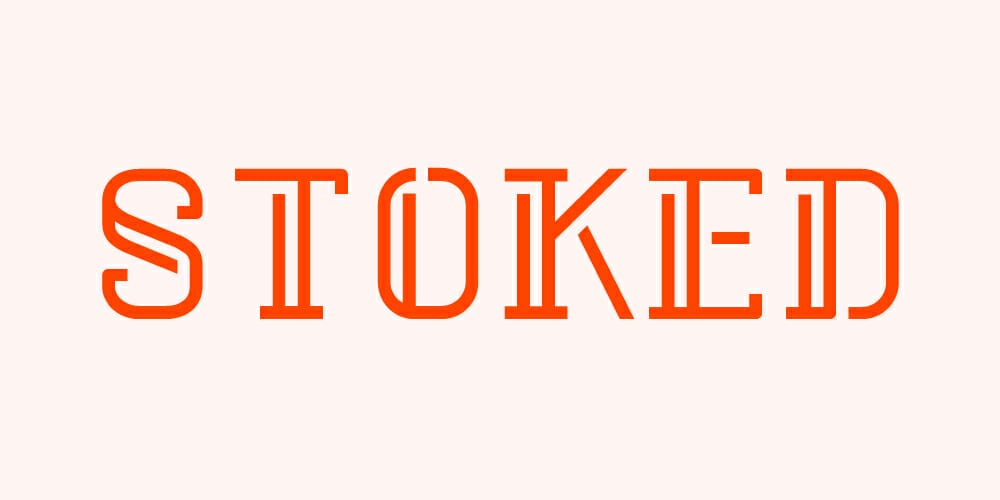
Gossamer Typeface
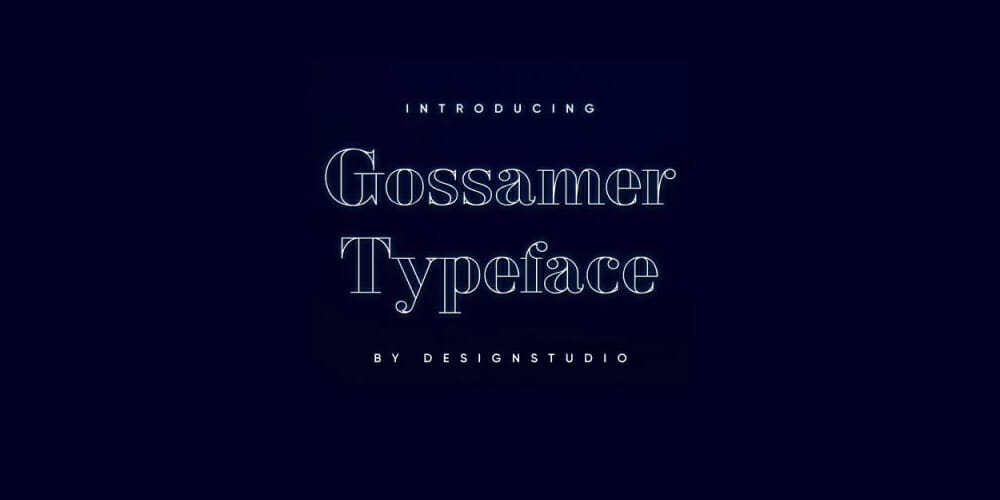
VTF Lack
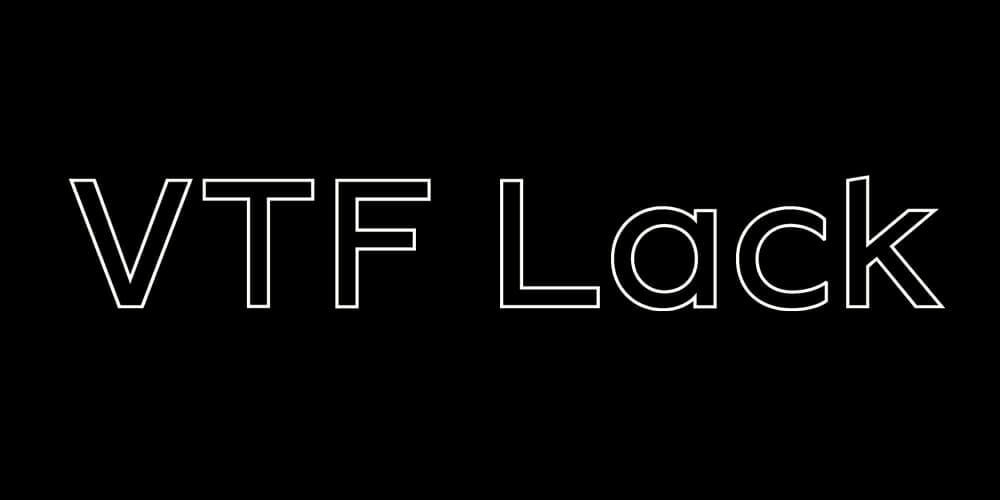
Cortni Font
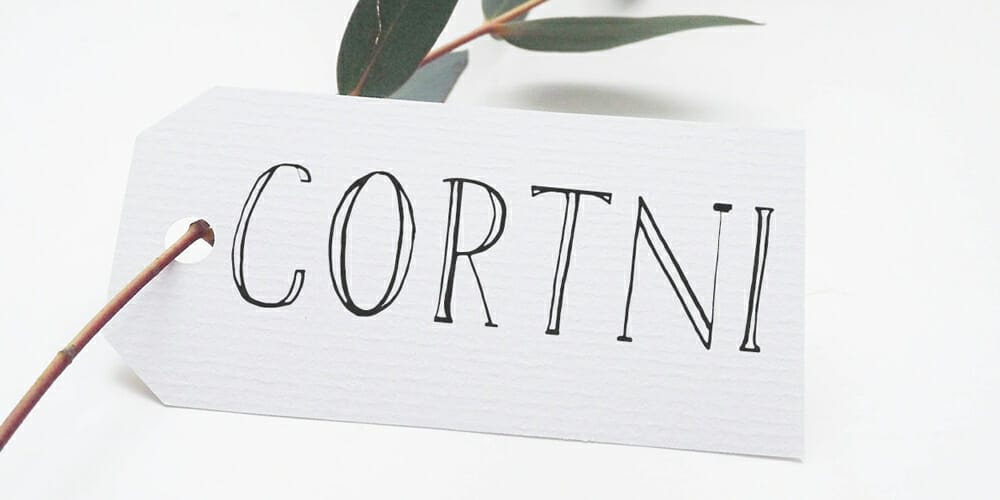
Balans
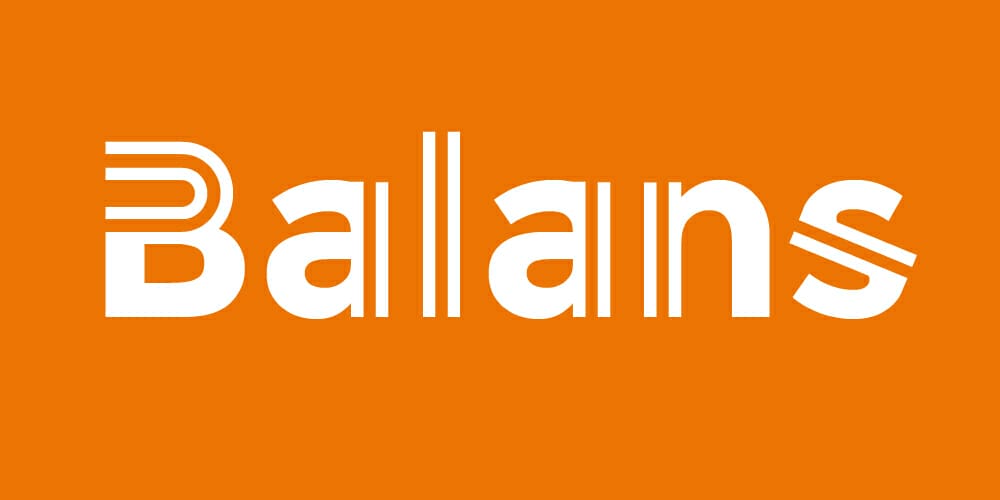
Pikolo Block Alt Display Font
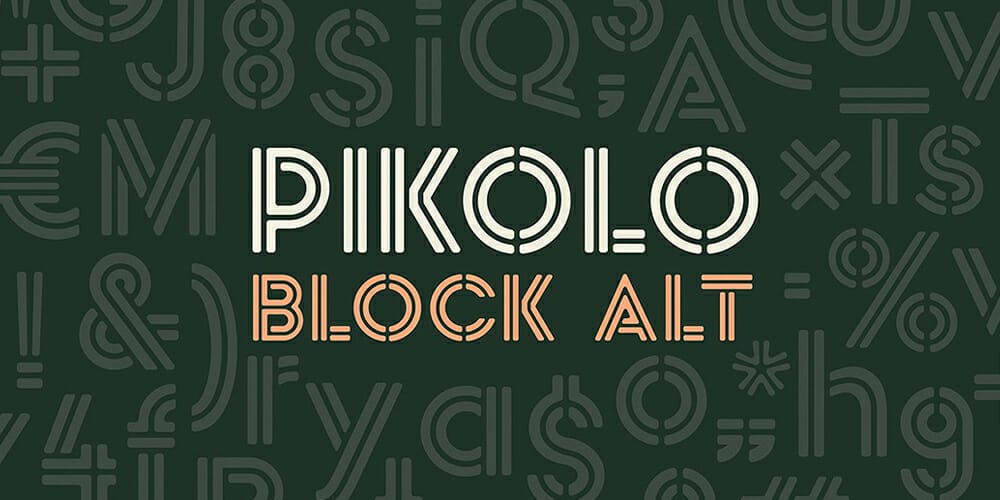
Protomo Font
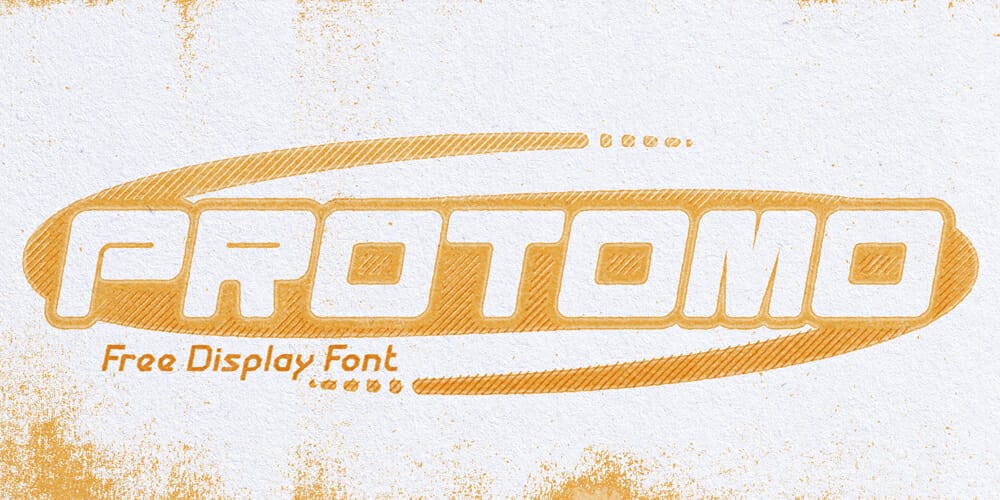
Neon Sans
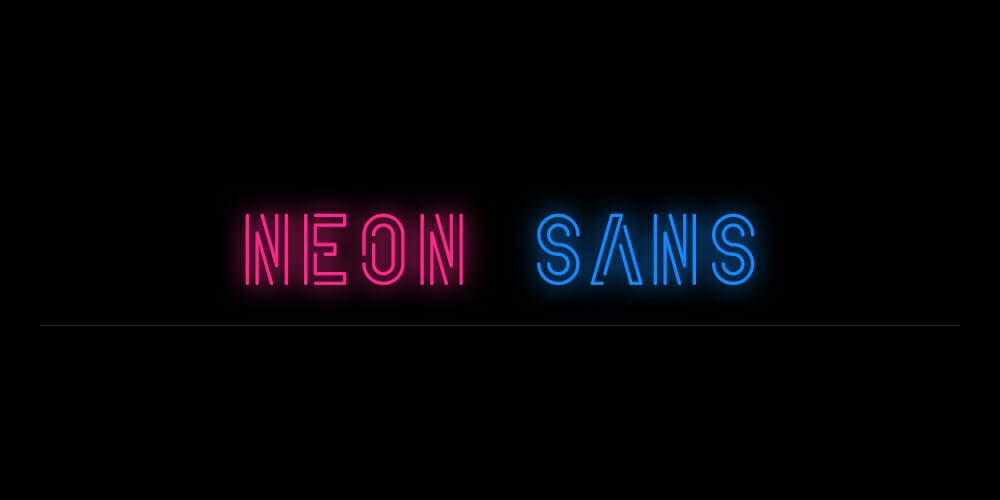
Stoicheion Font
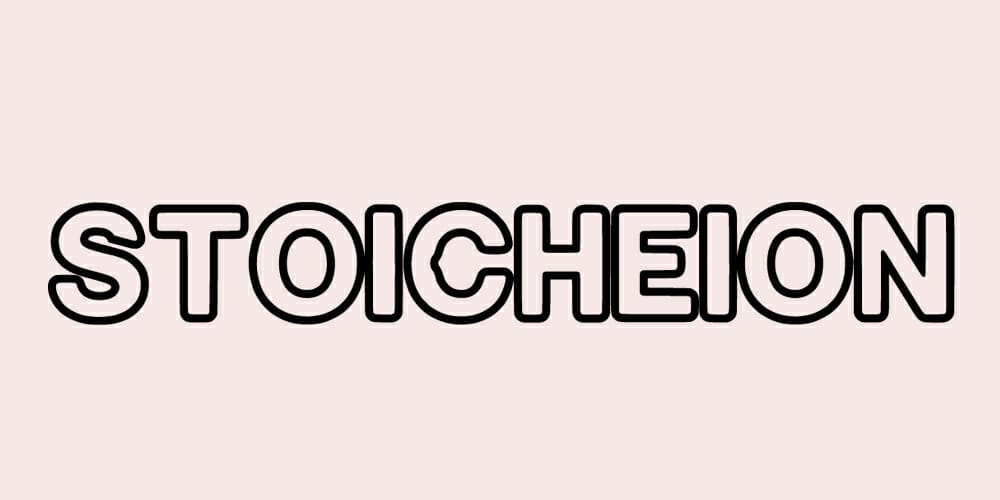
Valshu Font
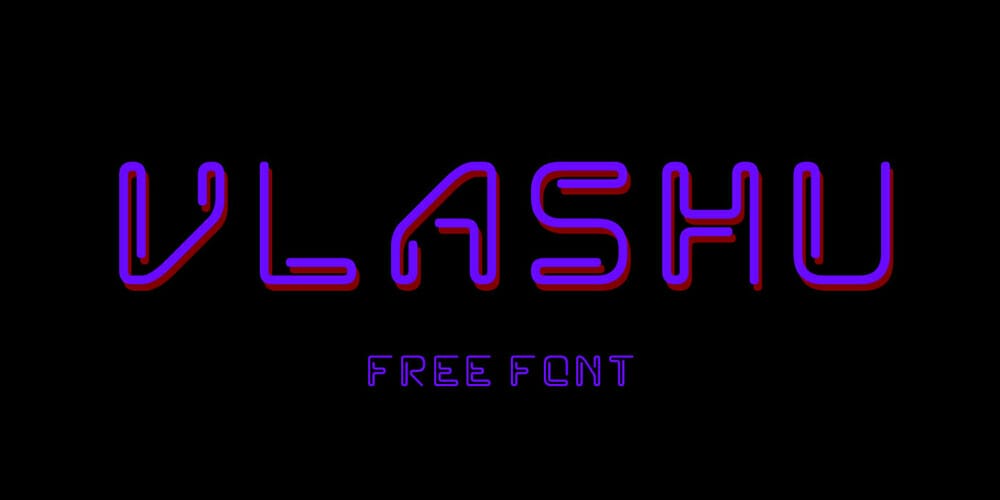
Fenwick
Frontage Font
Lovelo Font
Argon
Frontage Condensed
Amerton Outline
Paraline Font
Mom Font
Linedery
Indigo Font